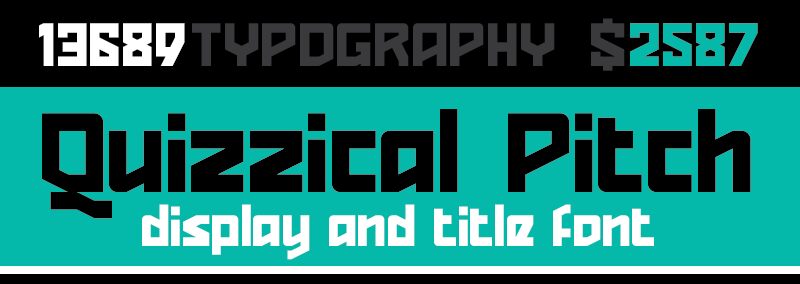
Quizzical Pitch, designed by Scott Byrne of FontStruct, is a free futuristic display font with broad, forceful letterforms and sharply engineered cuts. Its changing stroke widths, clipped corners, and wedge-shaped openings give the lettering the look of custom machinery rather than a conventional geometric alphabet.
For game titles, the angular construction suggests armored equipment and industrial environments, yet the broad silhouettes could also suit music posters and streetwear branding. It feels built for spectacle. The repeated notches can echo interface panels, vehicle graphics, or hard-edged illustration, making the type part of the depicted technology.